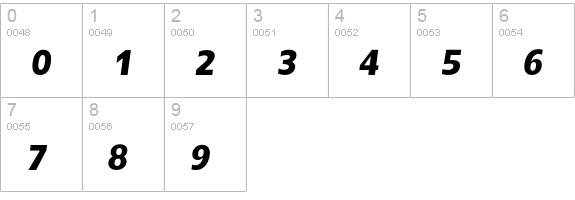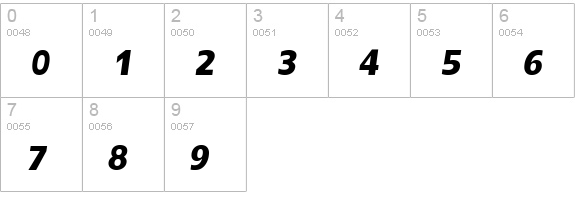
Slippy-BoldItalic Font Details
Slippy-BoldItalic is a captivating and dynamic font that adds a touch of flair and sophistication to any design project. With its bold and italicized letterforms, this font exudes a sense of confidence and style. The Slippy-BoldItalic font is perfect for grabbing attention and making a statement, whether it's used in headlines, logos, or branding materials. What sets Slippy-BoldItalic apart is not only its stunning aesthetic appeal but also the fact that it is free. Yes, you read that right – this remarkable font is freely available to download at FontsMarket.com. This means that you can easily access and incorporate Slippy-BoldItalic into your designs without any financial constraints. Downloading Slippy-BoldItalic from FontsMarket.com is a breeze, ensuring that you can start using this incredible font in no time. Its seamless integration into design software allows for effortless and efficient utilization, making it a go-to choice for designers of all levels of expertise. Slippy-BoldItalic offers a wide range of possibilities, making it an incredibly versatile font. Its bold and italicized nature makes it ideal for emphasizing key words or phrases, creating visual hierarchy, or adding a touch of elegance to any design. Whether you are designing a poster, website, or packaging, Slippy-BoldItalic will undoubtedly elevate your project to new heights. In addition to its aesthetic appeal and versatility, Slippy-BoldItalic also boasts excellent legibility. Its carefully crafted letterforms ensure that each character is distinguishable, guaranteeing a smooth reading experience for your audience. So why wait? Take advantage of the opportunity to enhance your designs with the captivating Slippy-BoldItalic font. Download it for free at FontsMarket.com today and unleash your creativity with this extraordinary typeface.